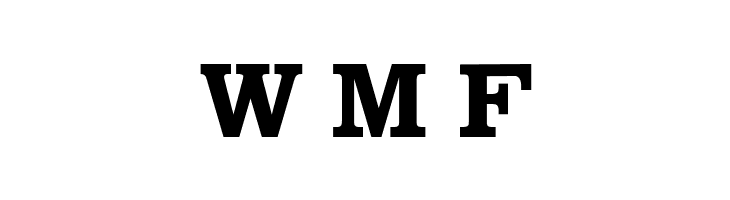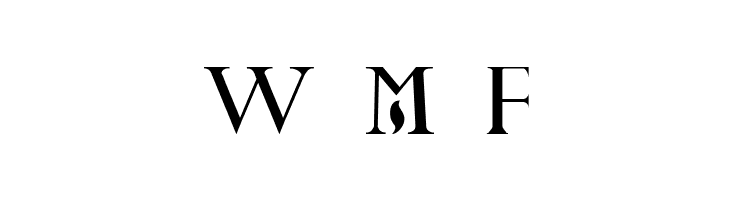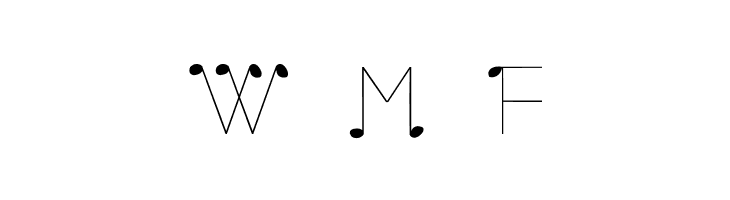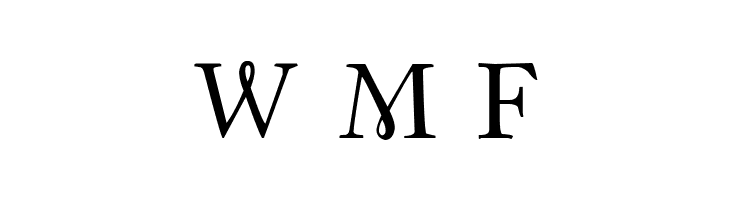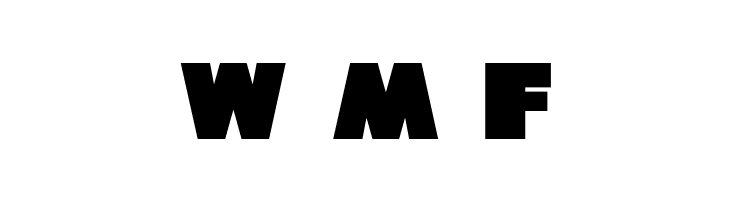
A decorative serif font with elegant flourishes and classic styling.
A whimsical and decorative font with playful swirls and curls.
A bold, playful handwritten font with dynamic, slanted characters.
A playful, geometric font with dot embellishments and thin strokes.
A bold, impactful font with thick strokes and a modern, commanding presence.
A bold, high-contrast serif font with a classic yet modern appeal.